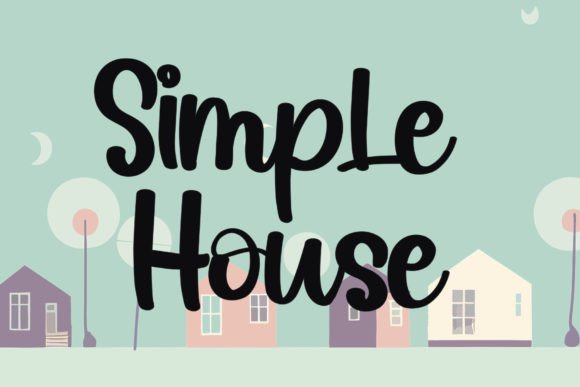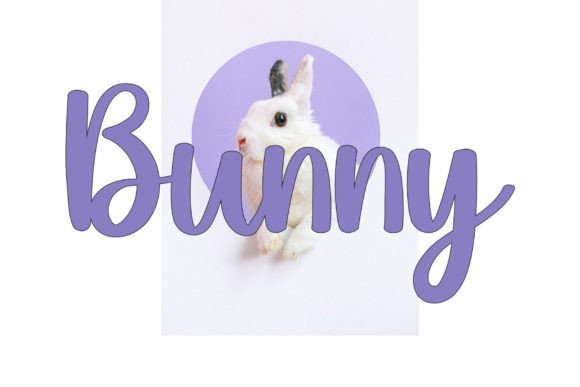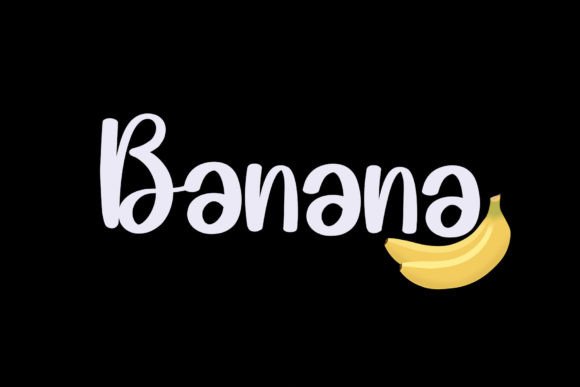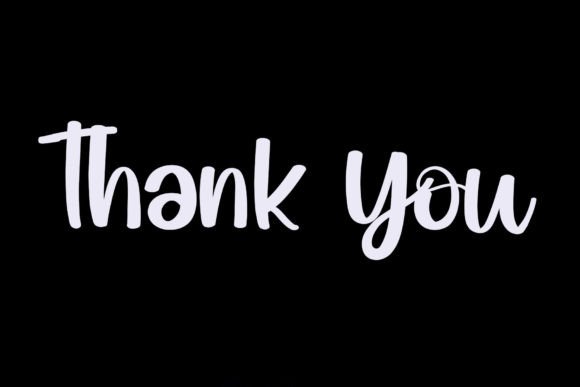
The Perfect Island Getaway for Your Designs: Hawaii Font
Have you ever found yourself daydreaming about a tropical island getaway, with the soothing sound of waves and the warmth of the sun on your skin? For many of us, Hawaii is the epitome of a relaxing escape. But did you know that this idyllic destination has inspired a font that can bring a similar sense of calm and elegance to your design projects?
Introducing Hawaii Font, a trendy handwritten font that exudes a contemporary atmosphere and impeccable form. This timeless classic calligraphy-inspired font is perfect for adding a touch of sophistication to any design project. With its versatility and effortless charm, Hawaii Font is a valuable asset for designers looking to elevate their work.
Whether you’re creating a brochure, a logo, or a social media post, Hawaii Font is sure to add a unique and stylish touch. Its versatility makes it an ideal choice for a wide range of design projects, and its elegant form ensures that your work will stand out from the crowd.
Hawaii Font Key Features
- Font Family: The Hawaii Font family includes multiple styles, such as Regular, Bold, Italic, and Bold Italic.
- Unique Characteristics: The Hawaii Font features a unique, tropical design with intricate details and patterns, evoking a sense of relaxation and tranquility.
Hawaii Font Review
I recently had the chance to work with the Hawaii Font, and I’m excited to share my honest review.
- Beautiful Tropical Vibes: The Hawaii Font perfectly captures the essence of the Hawaiian islands, making it perfect for projects that require a tropical or beachy feel.
- High-Quality Typography: The font is well-crafted, with crisp lines and clear letterforms that make it easy to read and use in various contexts.
- Customization Options: The font comes in a range of weights and styles, allowing for flexibility in design and creative expression.
- Limited Language Support: The font only includes English characters, which may be a limitation for projects that require multilingual support.
- Not Suitable for Small Text: The font is designed for larger text sizes, and may not be ideal for smaller text where readability is crucial.
Overall, I’m impressed with the Hawaii Font’s unique character and versatility. While it may have some limitations, it’s a great choice for projects that require a tropical or beachy feel. With careful consideration of its limitations, the Hawaii Font can be a valuable addition to any designer’s toolkit.
Tips for Getting the Most Out of Hawaii Font
For best results, use Hawaii Font in designs that require a tropical or beachy vibe.
Pair Hawaii Font with other tropical-inspired graphics and fonts for a cohesive design.
Hawaii Font is perfect for:
Beach-themed wedding invitations and decorations
Tropical-inspired travel brochures and websites
Summer-themed social media graphics and ads
Alternatives to “Hawaii Font” for Designers
Pacifico is a beautiful, elegant script font that is perfect for adding a touch of sophistication to your designs. It’s ideal for use in logos, branding materials, and editorial content. Pacifico is a more refined and polished alternative to Hawaii Font, making it suitable for high-end projects.
Great Vibes is a modern, handwritten font that is perfect for creating a fun and playful atmosphere in your designs. It’s ideal for use in social media graphics, advertisements, and event materials. Great Vibes is a more energetic and casual alternative to Hawaii Font, making it suitable for creative and youthful projects.
Carolyna Pro is a elegant, modern script font that is perfect for adding a touch of luxury to your designs. It’s ideal for use in high-end branding materials, magazines, and advertising campaigns. Carolyna Pro is a more refined and sophisticated alternative to Hawaii Font, making it suitable for high-end projects.